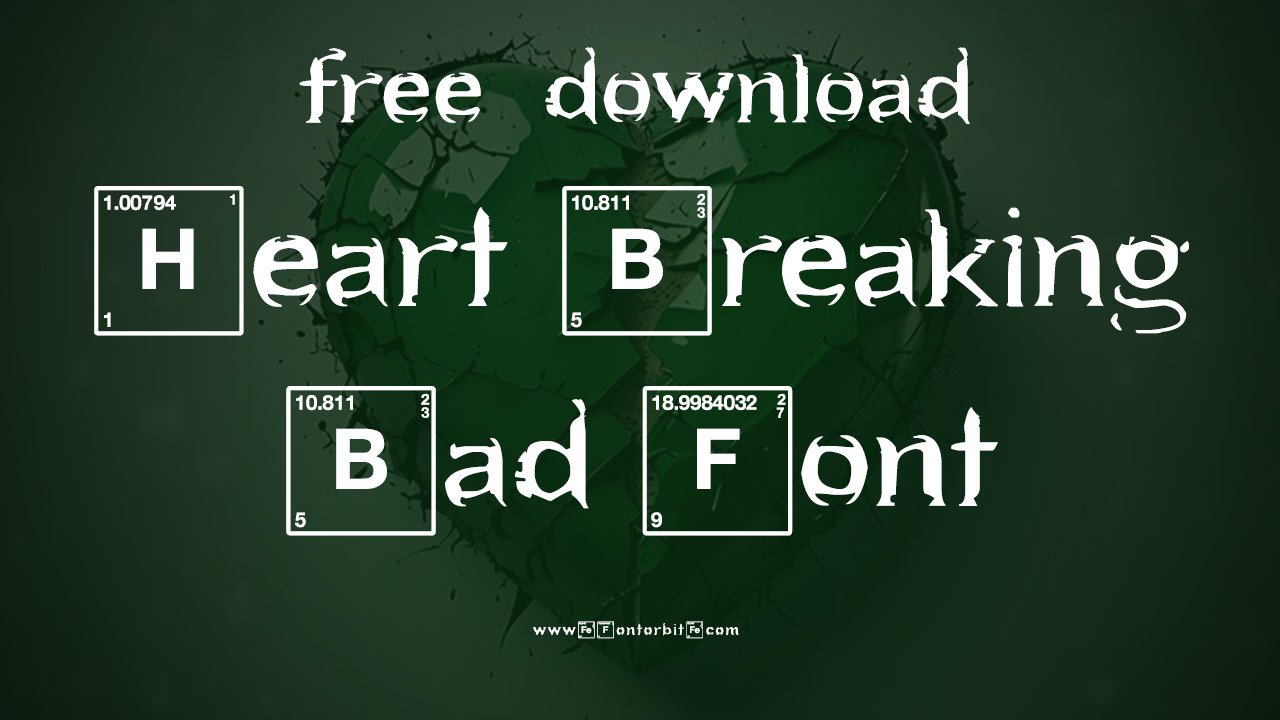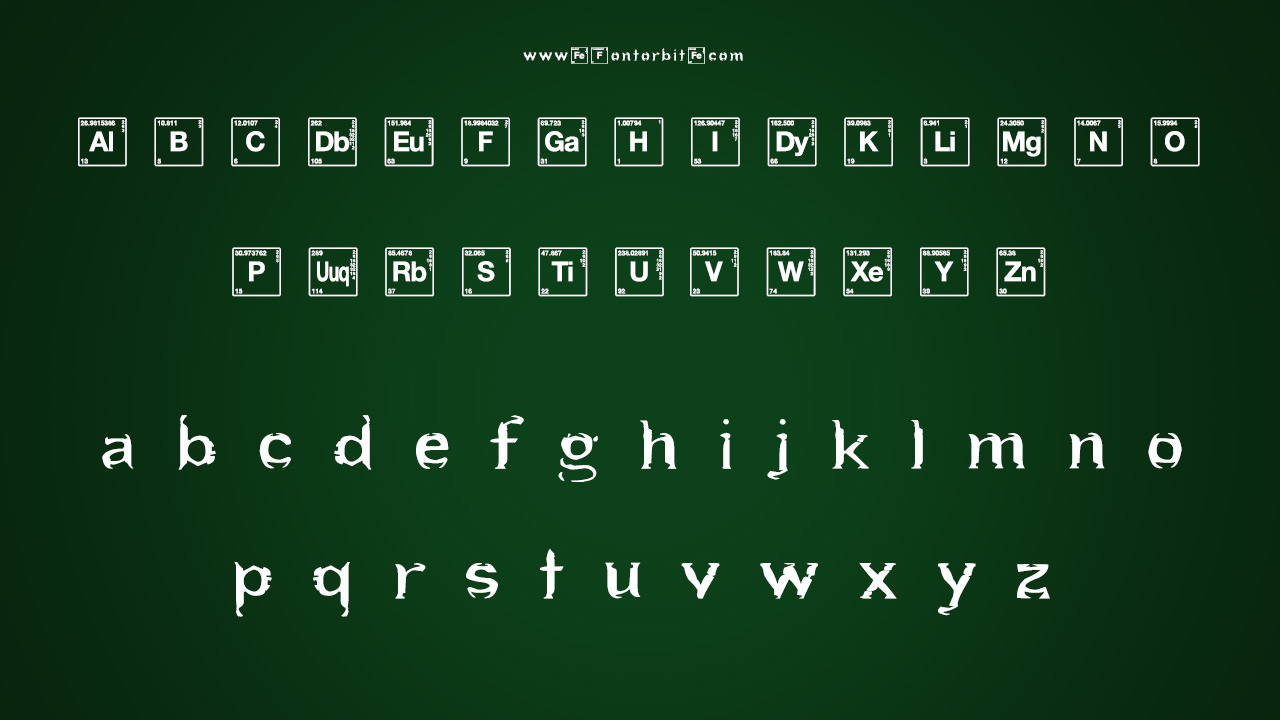
Type Of The Heart Breaking Bad Font (Font Family)
Heart Breaking Bad falls under the category of fancy display fonts. It is designed to evoke a modern, playful vibe while incorporating elements of chemistry. The font family includes:
Heart Breaking Bad
Heart Breaking Bad Font is perfect for various creative projects. With its unique character set, Heart Breaking Bad Font offers a distinctive flair for everything from themed merchandise to eye-catching graphics, appealing to design enthusiasts and pop culture aficionados alike. Its distinct style makes it well-suited for:
- Banners
- Graphic design
- Social media posts
- Educational materials
- Creative arts
Heart Breaking Bad Font is a fun and versatile typeface perfect for projects inspired by chemistry or the “Breaking Bad” series. Its distinctive look makes it an excellent choice for creative applications.
This font is widely popular in fan art, merchandise, and themed designs that resonate with “Breaking Bad” enthusiasts. Its playful yet stylish appearance adds a unique flair to any project related to the show or chemistry.
1.What Are The Characteristics Of Heart Breaking Bad Font?
Heart Breaking Bad Font features a playful design inspired by the “Breaking Bad” logo, focusing on chemistry elements.
2.What Are The Considerations For Using Heart Breaking Bad Font In Branding?
Ensure the font aligns with the theme of your project, particularly if it relates to chemistry or pop culture.
3.What Are The Limitations Of Using Heart Breaking Bad Font In Design?
Its specific style may not suit formal or corporate designs and is best used in casual or themed contexts.
5.What Makes Heart Breaking Bad Font Unique?
Its playful aesthetics and chemistry elements make it ideal for projects inspired by “Breaking Bad.”